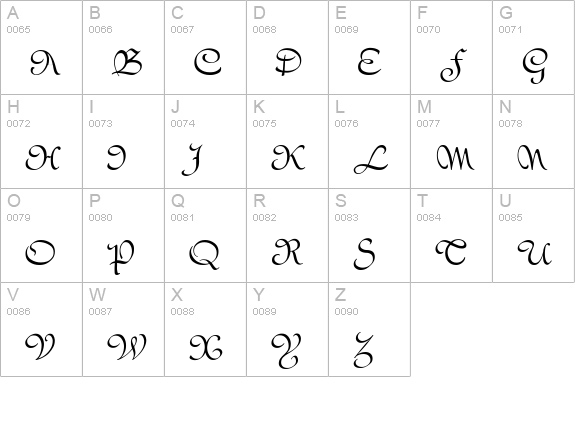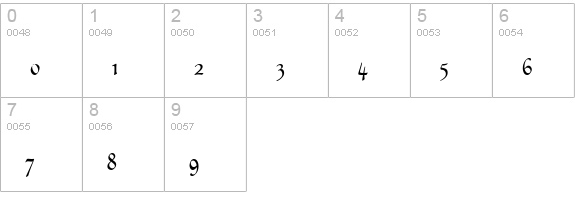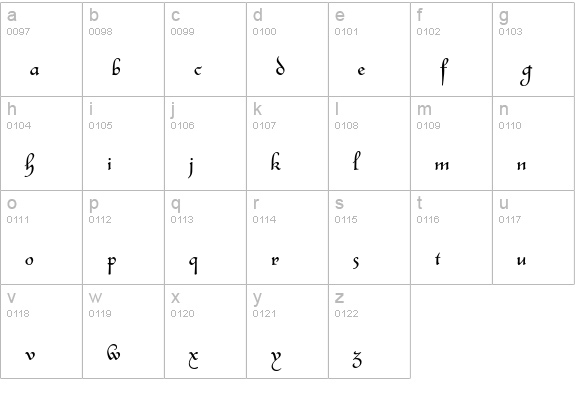
Civil Font Details
Civil font is a modern and versatile typeface that exudes elegance and sophistication. With its clean lines and balanced proportions, this font is perfect for a wide range of design projects, from branding to editorial design. Its timeless appeal makes it suitable for both digital and print applications. What sets Civil font apart is not just its aesthetic appeal, but also its accessibility. This font is available for free download at FontsMarket.com, making it easily accessible to designers and creatives looking to elevate their work with a touch of sophistication. Whether you're working on a website, a brochure, or a logo, Civil font is sure to add a touch of class to your design. Download it today and see for yourself the impact it can have on your projects.